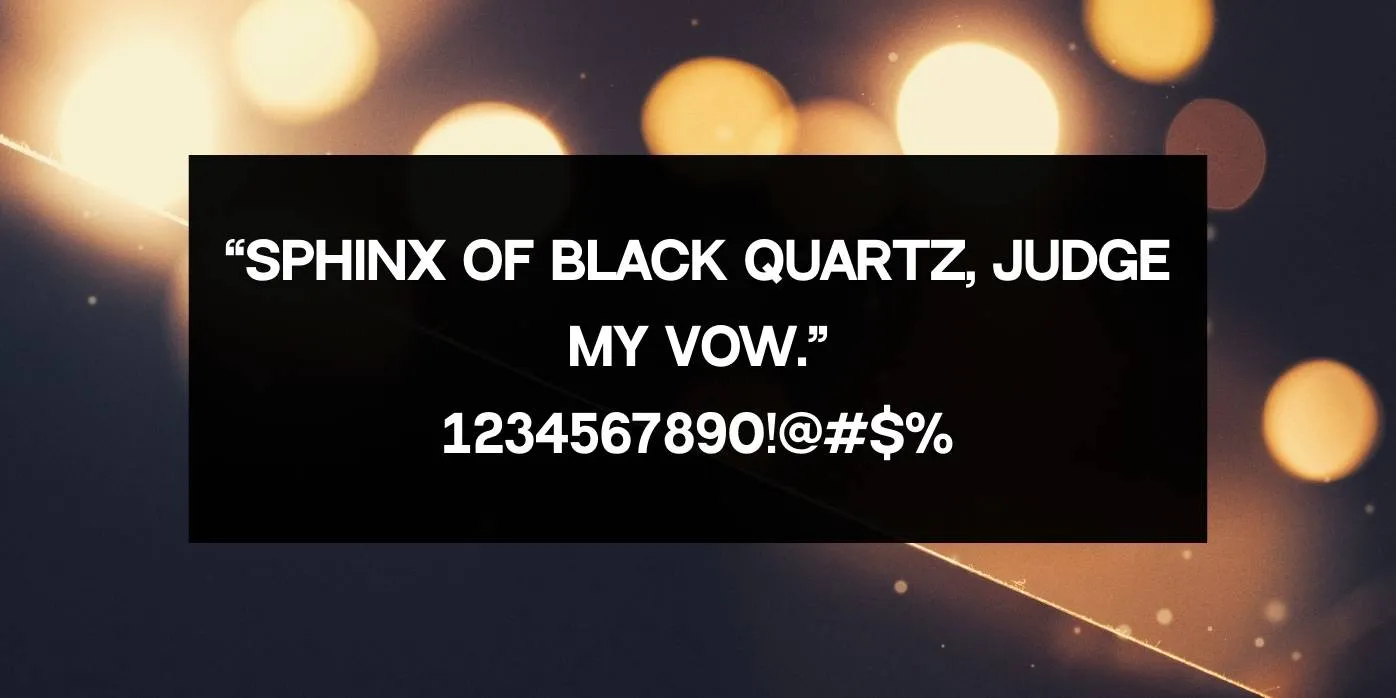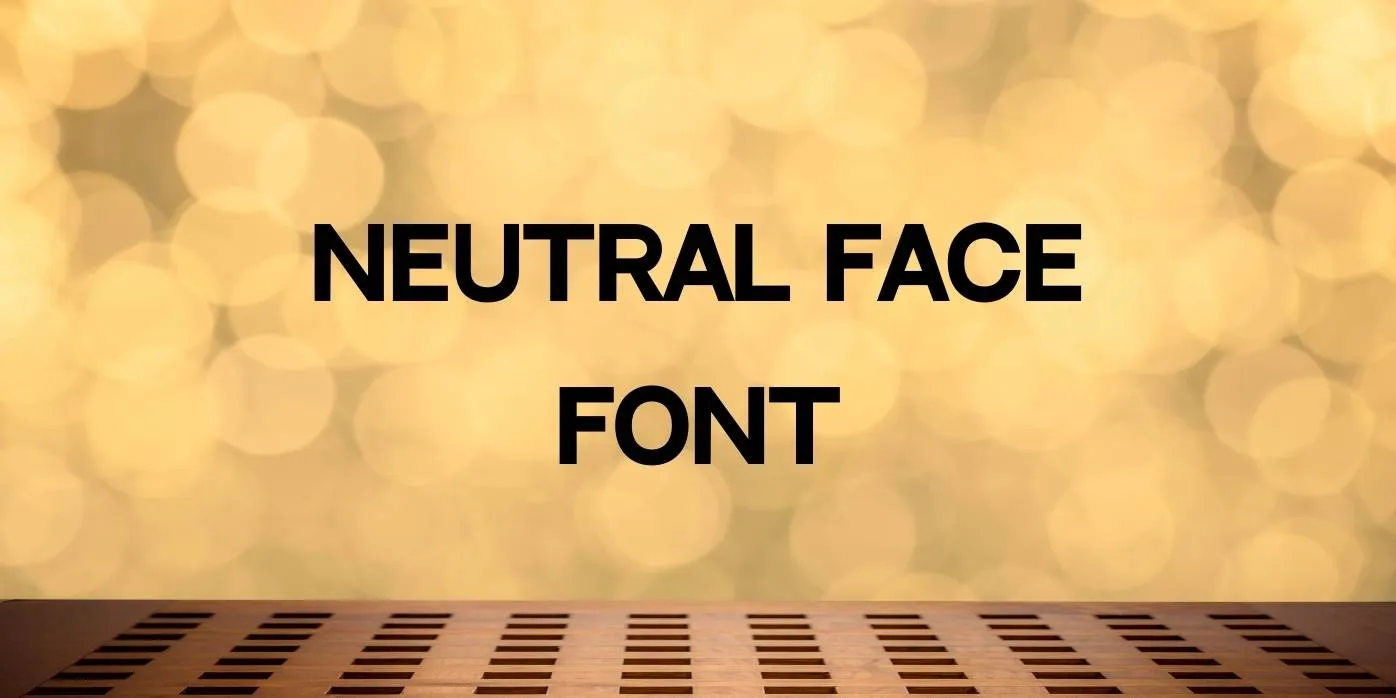
Neutral Face Font
Neutral Face font is a sans-serif typeface that was designed by Tom Lane in 2002. The font is named after the Futura typeface, which was designed by Paul Renner in 1927. It is a sans serif typeface that has a neutral design. The font is often used for body text and headlines.
The font is a great choice for those who need a legible typeface for body text or headlines. The font is available in many different languages, including Latin, Cyrillic, and Greek.